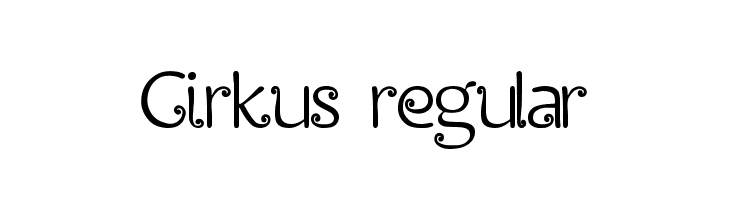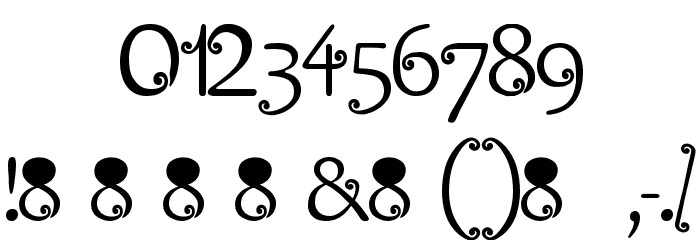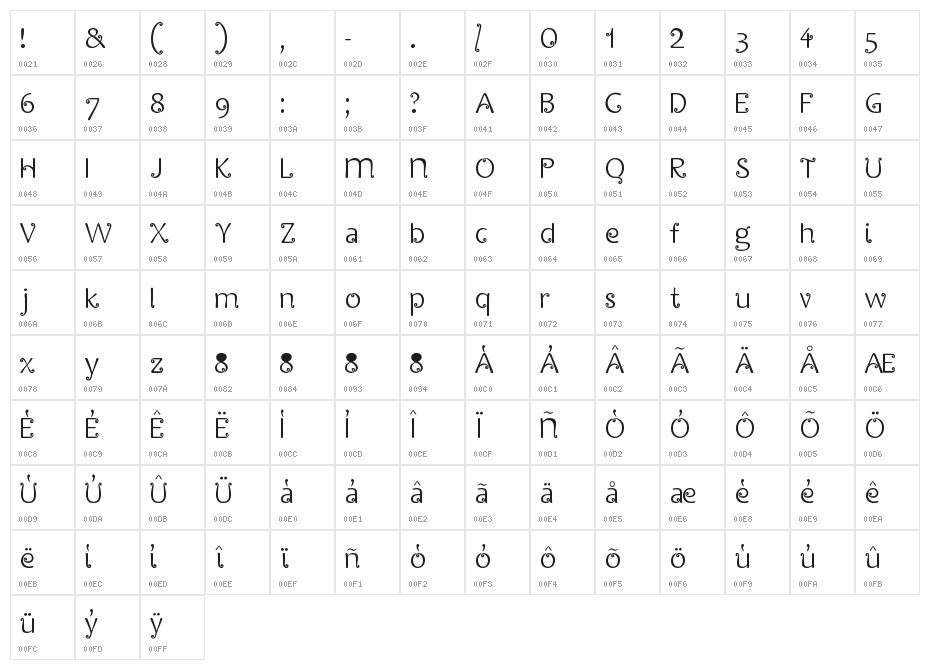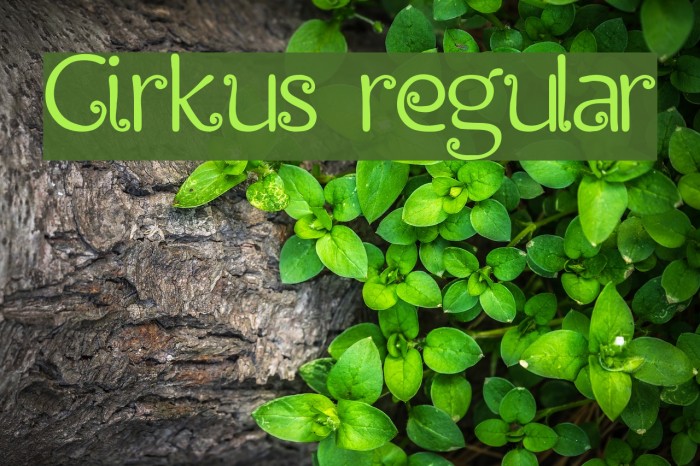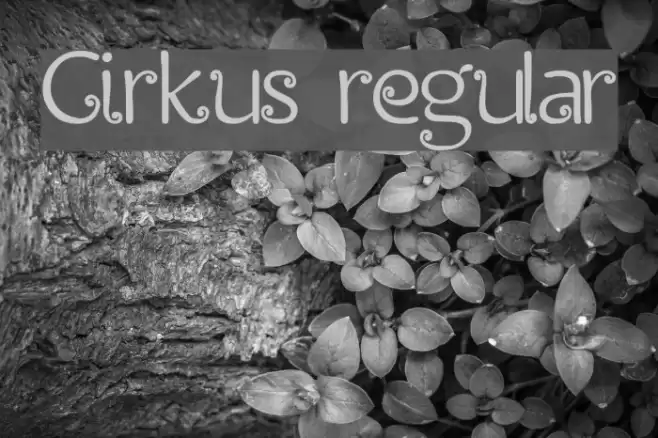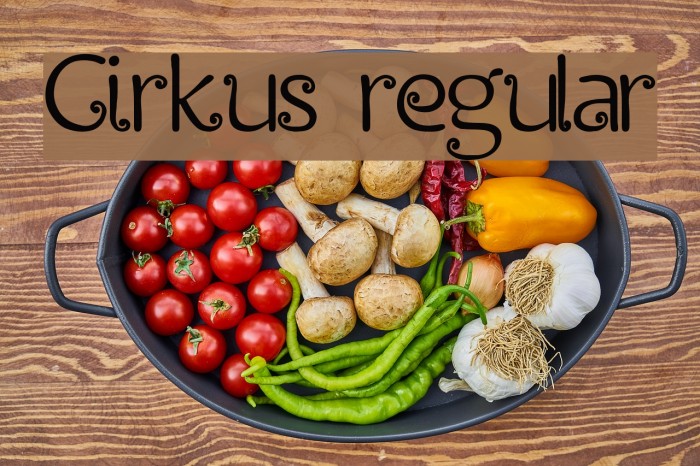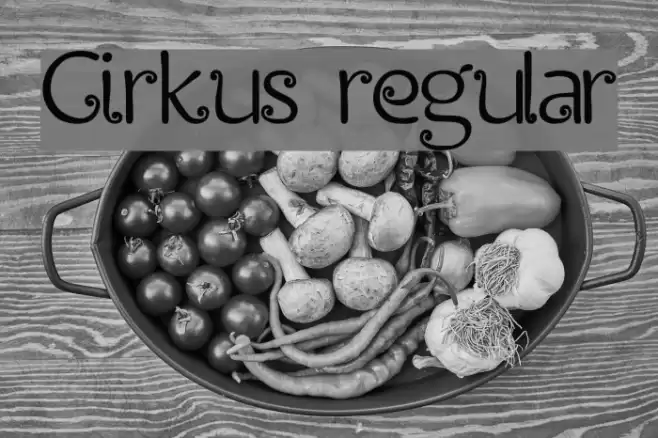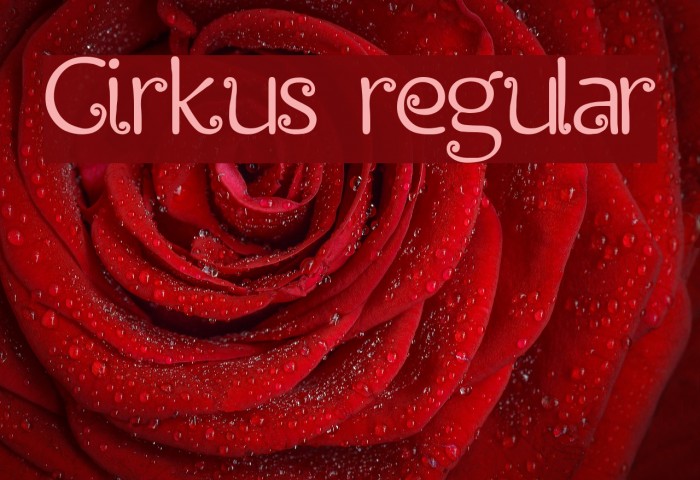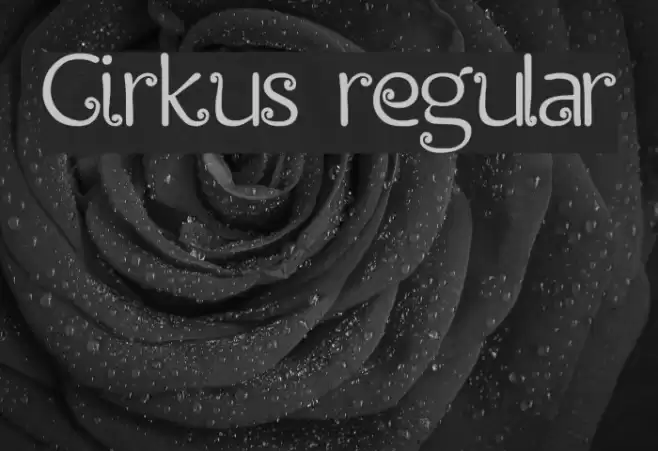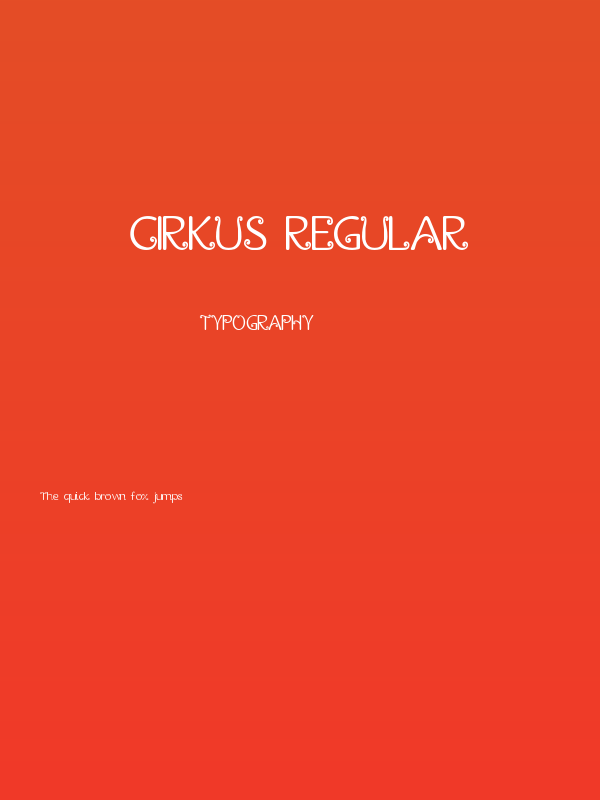
Cirkus regular Font
Cirkus regular Description
This font features a whimsical and playful design, characterized by its decorative swirls and curls that embellish each letter. The uppercase and lowercase letters maintain a consistent style, with rounded edges and unique flourishes that give it a lively and dynamic appearance. The numerals and special characters are equally adorned, ensuring a cohesive look throughout. Its artistic flair makes it stand out, capturing attention with its intricate details and creative expression.
Proposed ProjectsIdeal for circus-themed posters, playful invitations, children's book covers, and any project requiring a fun and lively typeface.